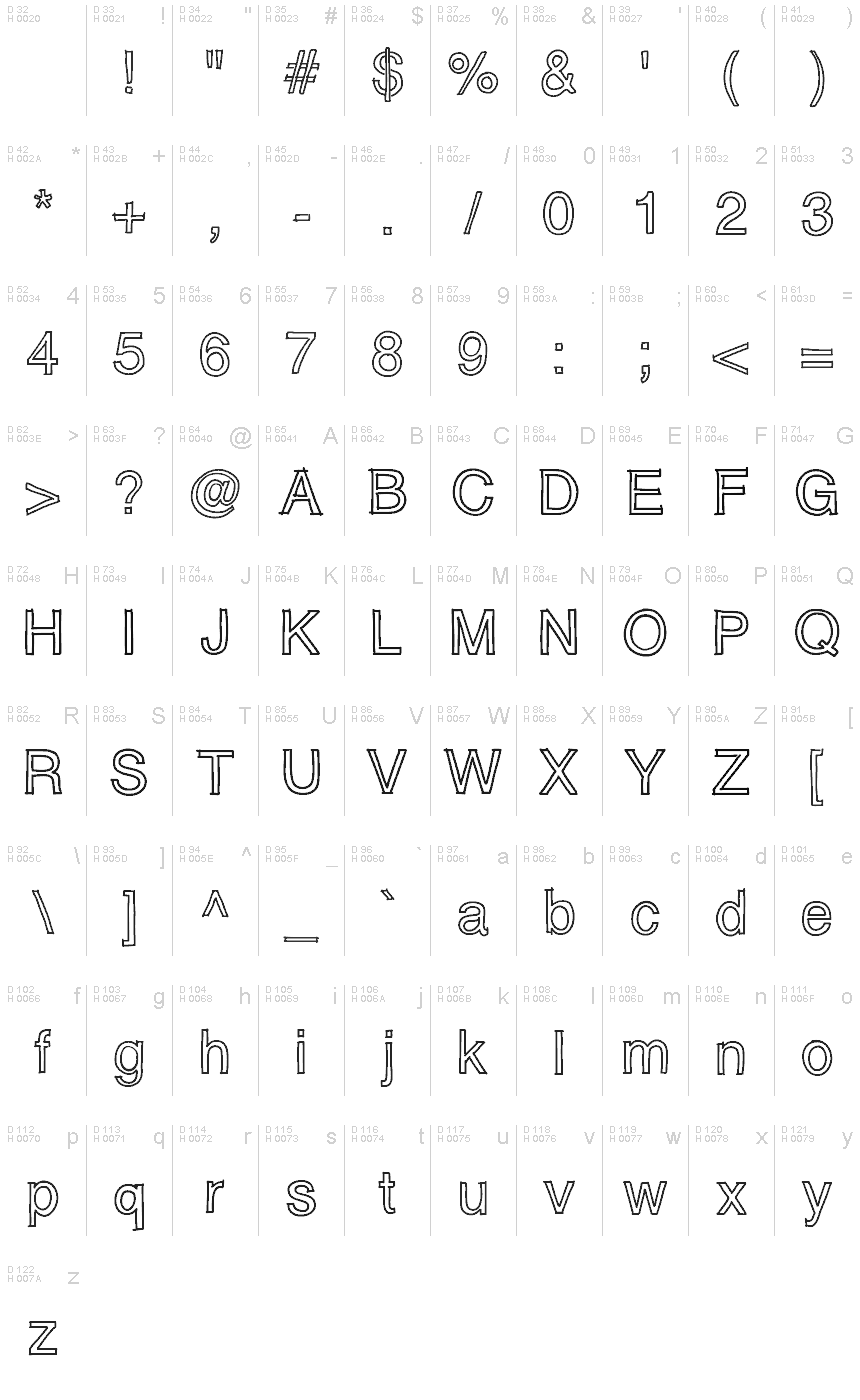
Matias
Matias is a captivating display font crafted by designer Francesco Caponi. With its distinctive cartoon-inspired style and outlined aesthetic, this font exudes a playful and whimsical charm.
The bold, expressive letterforms and dynamic strokes instantly capture the eye, making Matias an excellent choice for headings, branding, and creative projects that demand a touch of playful flair. The font's versatility allows it to shine in a variety of applications, from children's book covers to vibrant signage and promotional materials.
Matias's unique visual appeal and attention-grabbing presence make it a standout option for designers seeking to infuse their work with a touch of lighthearted, animated appeal.
The bold, expressive letterforms and dynamic strokes instantly capture the eye, making Matias an excellent choice for headings, branding, and creative projects that demand a touch of playful flair. The font's versatility allows it to shine in a variety of applications, from children's book covers to vibrant signage and promotional materials.
Matias's unique visual appeal and attention-grabbing presence make it a standout option for designers seeking to infuse their work with a touch of lighthearted, animated appeal.